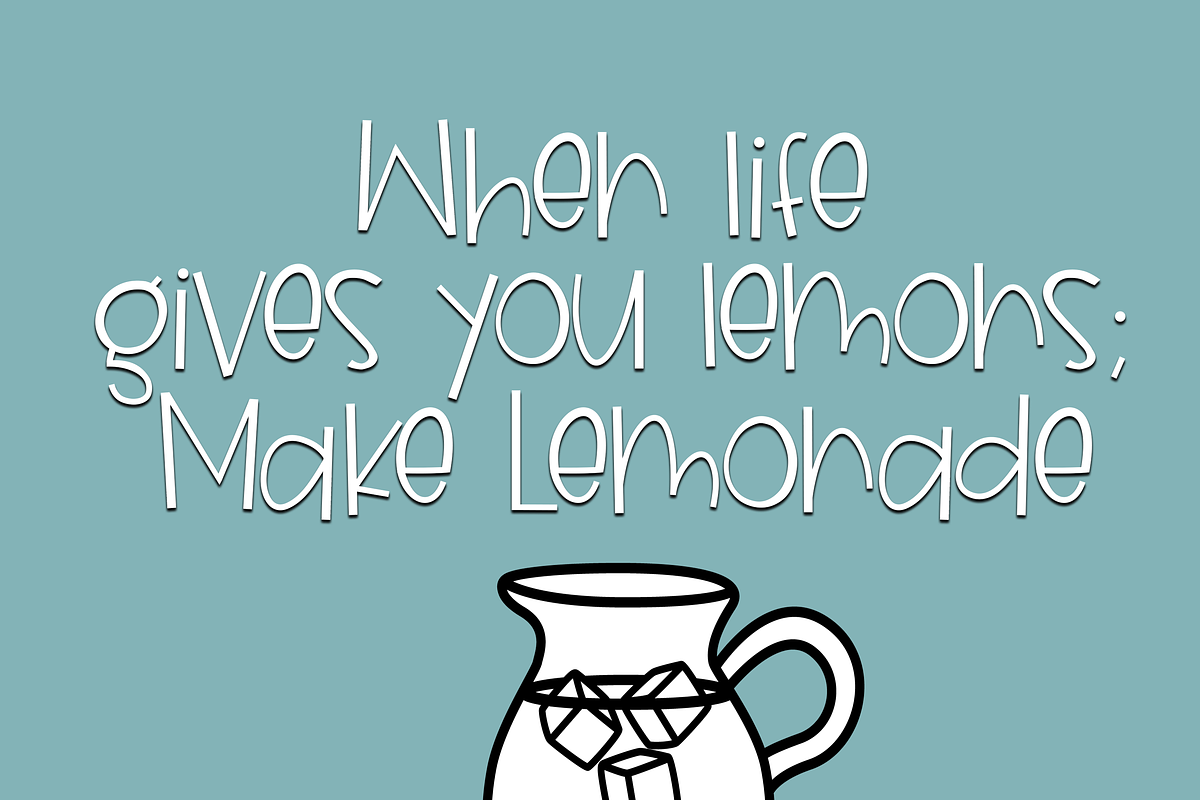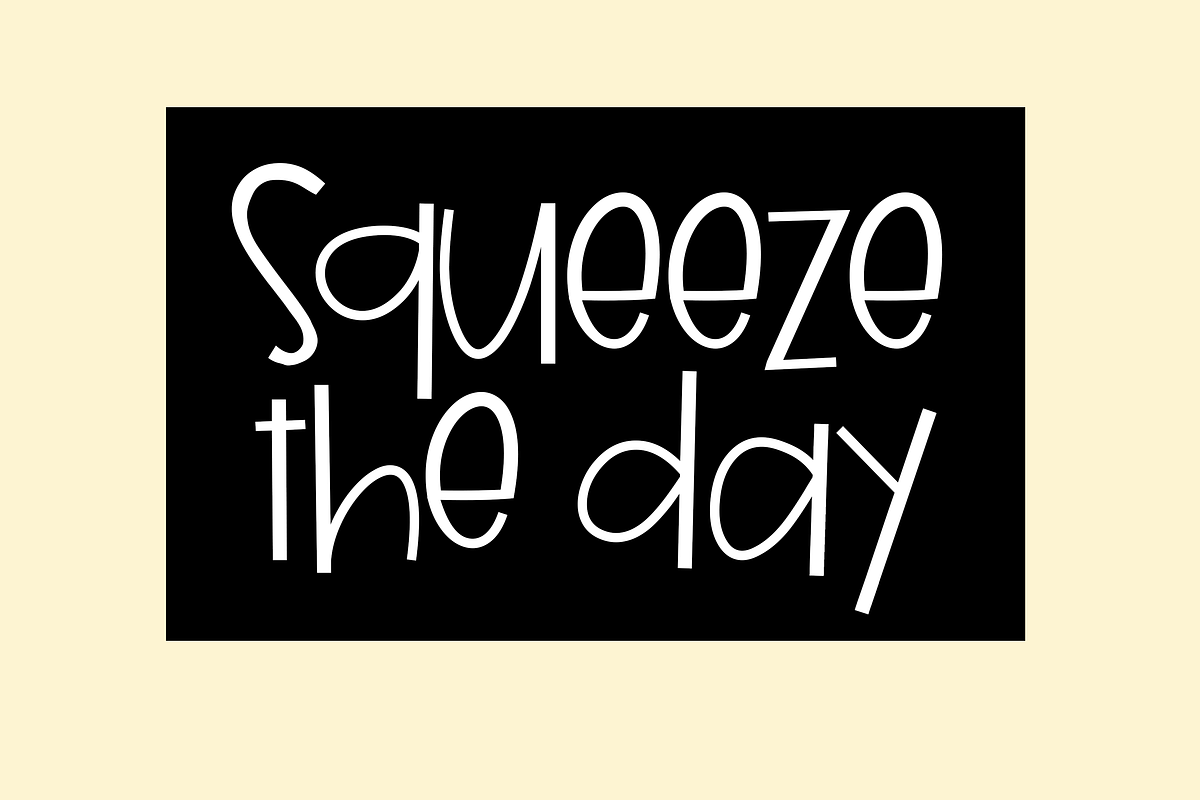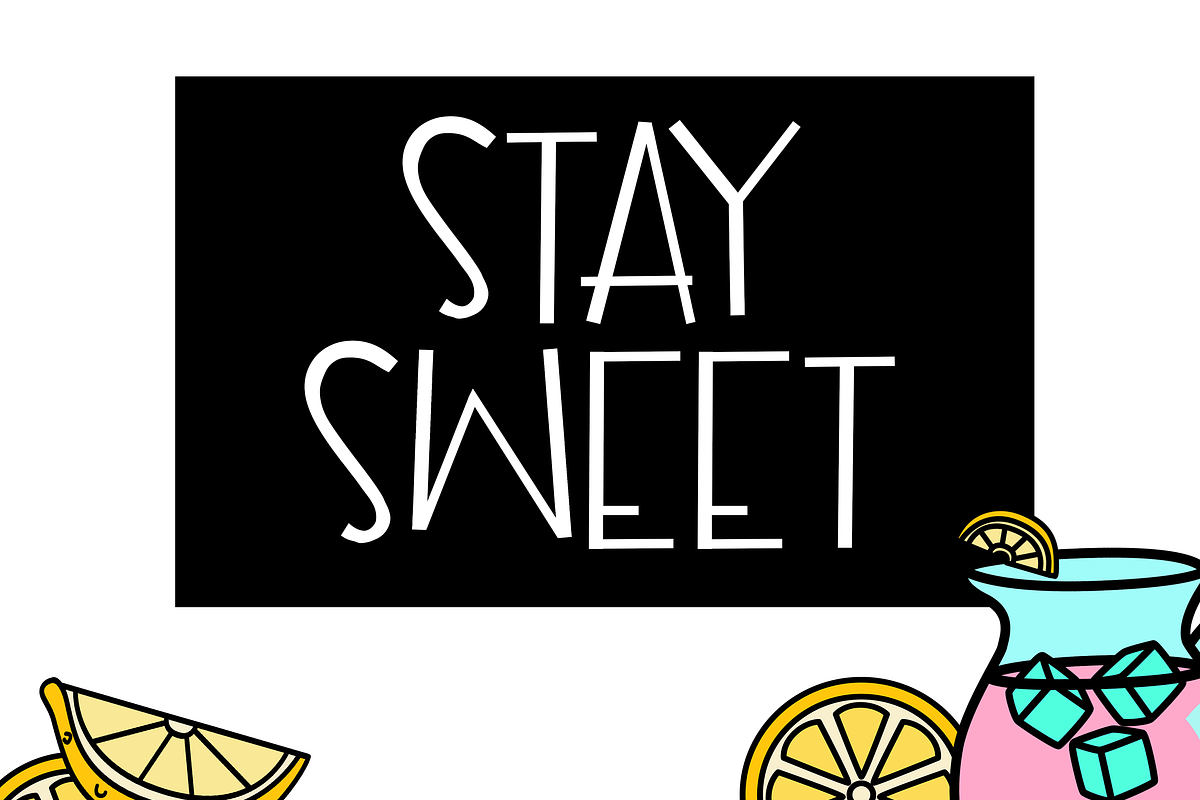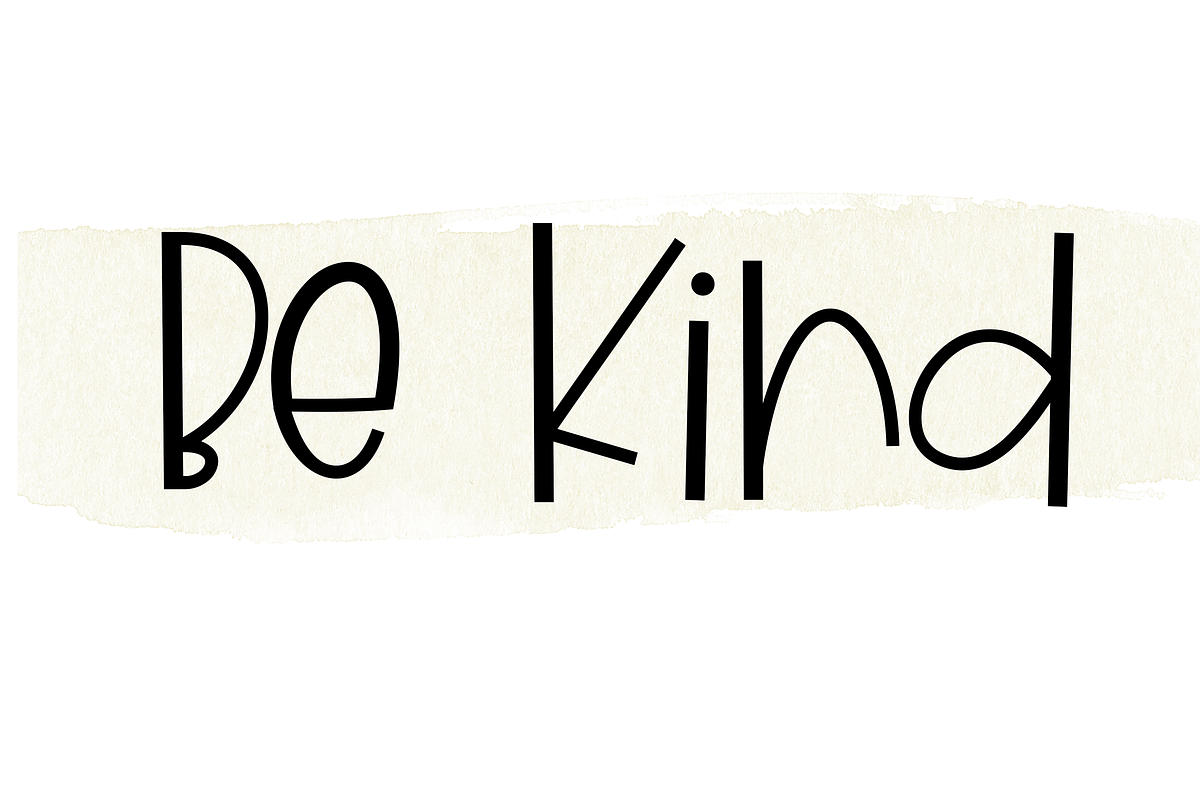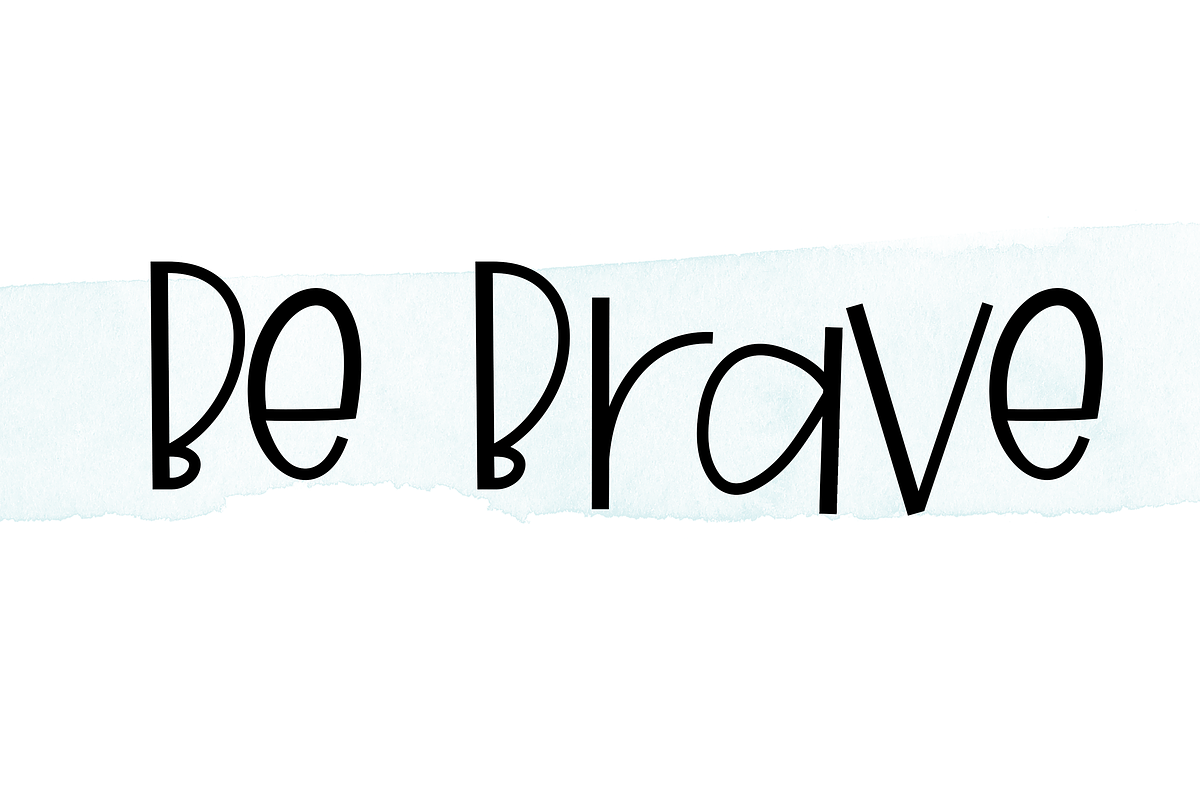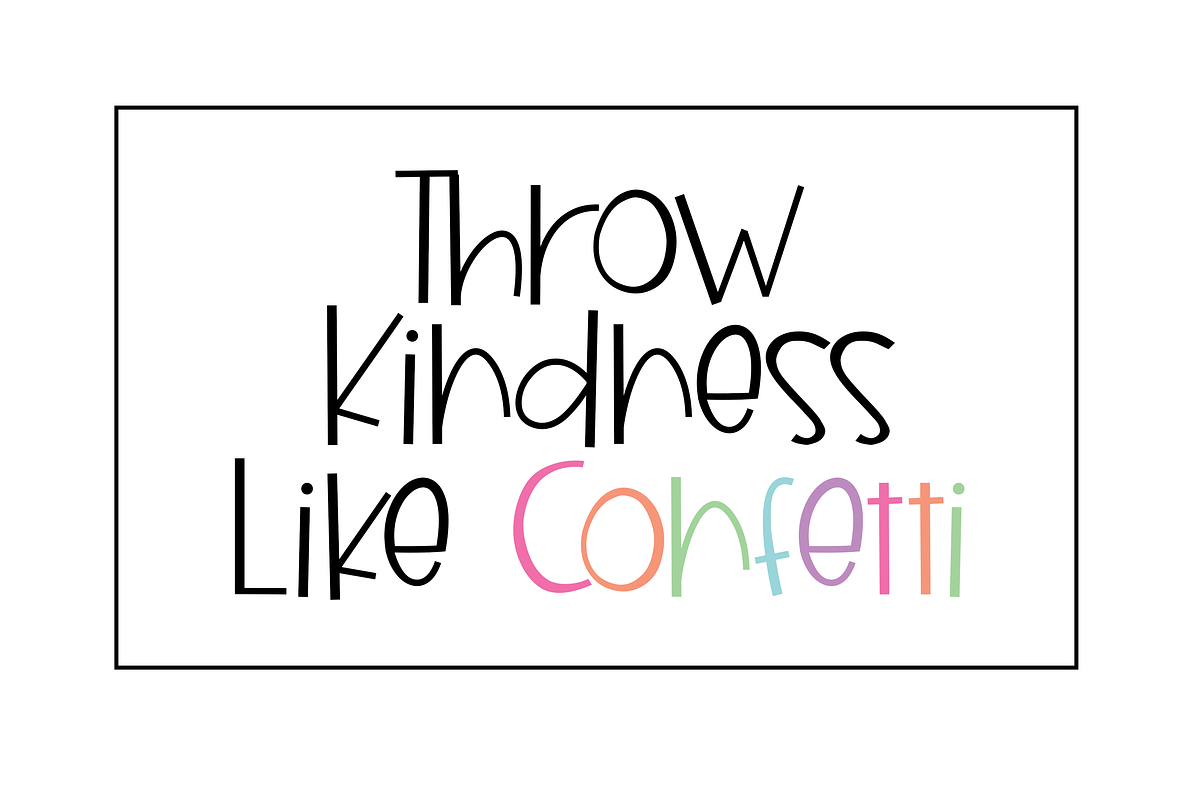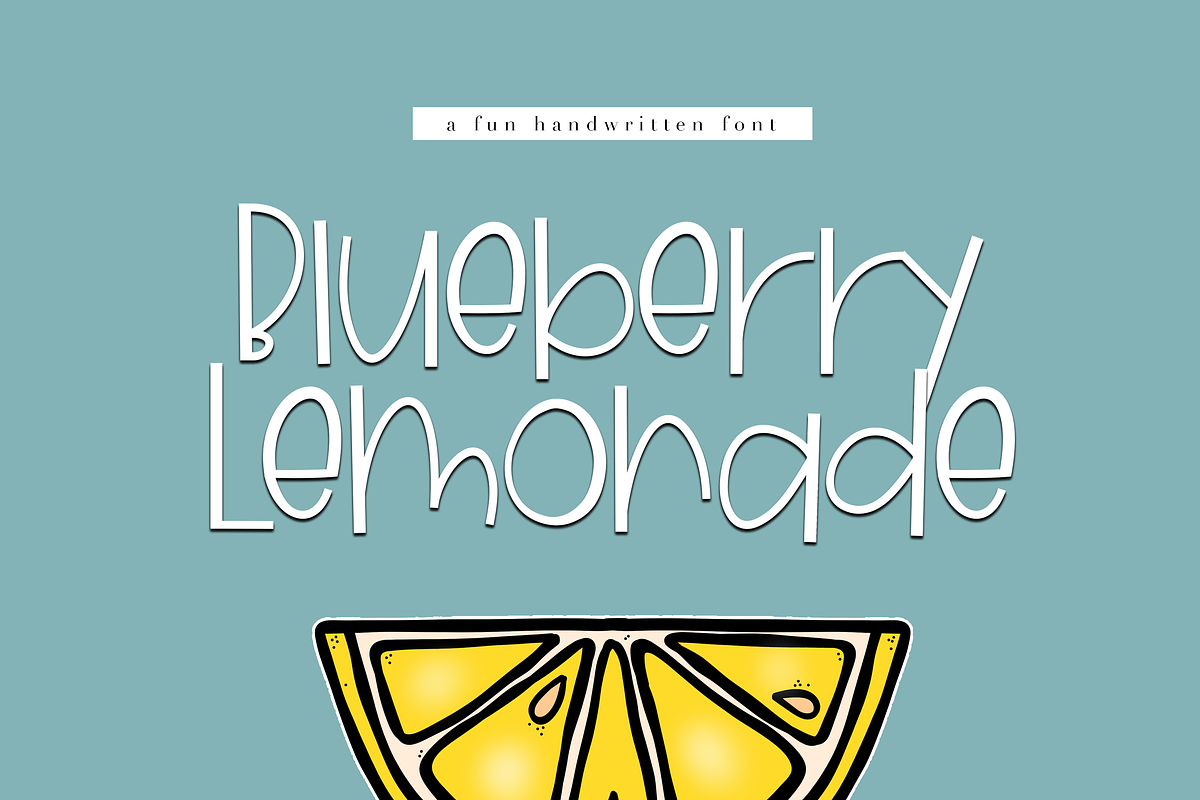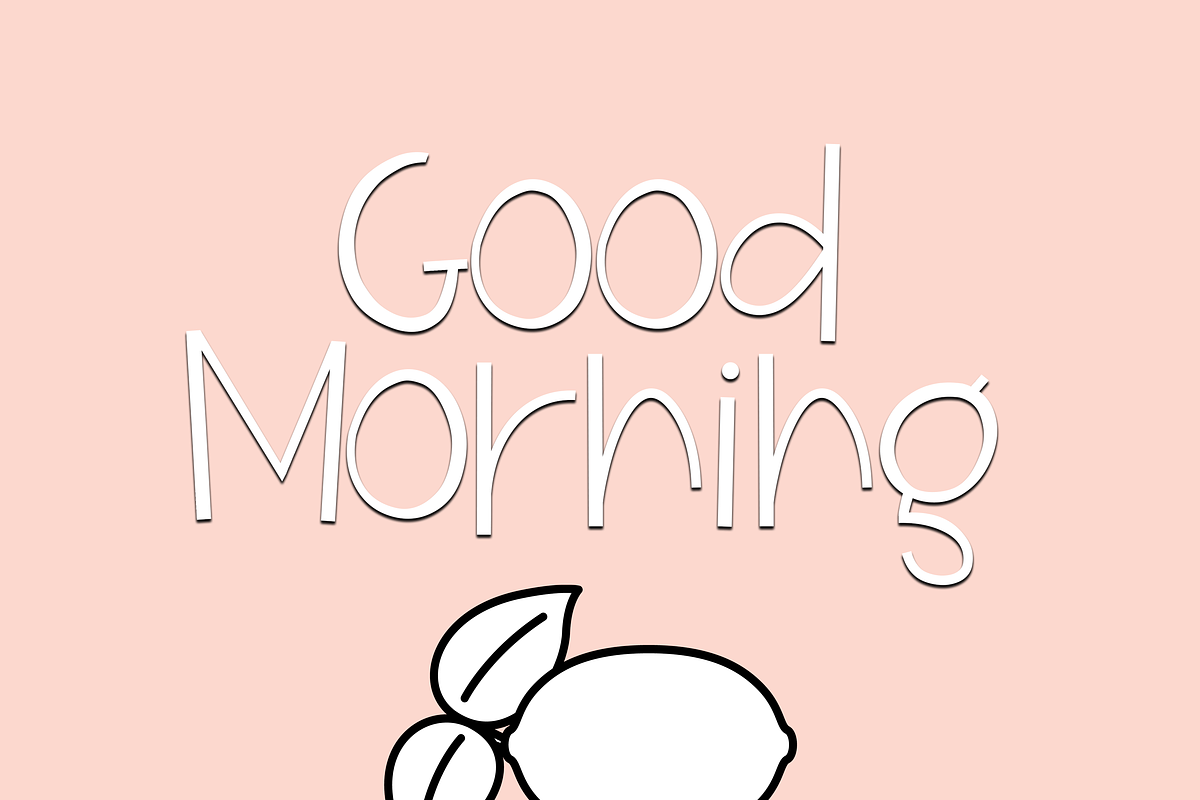
Blueberry Lemonade- Handwritten Font
Blueberry Lemonadeis a fun & quirky handwritten font. The letters are cute and unique!
This font is perfect for quotes, headings, blogs, logos, invitations and more!
Blueberry Lemonade- Handwritten Font by KA Designs fits naturally into Branding, posters, packaging, typography.